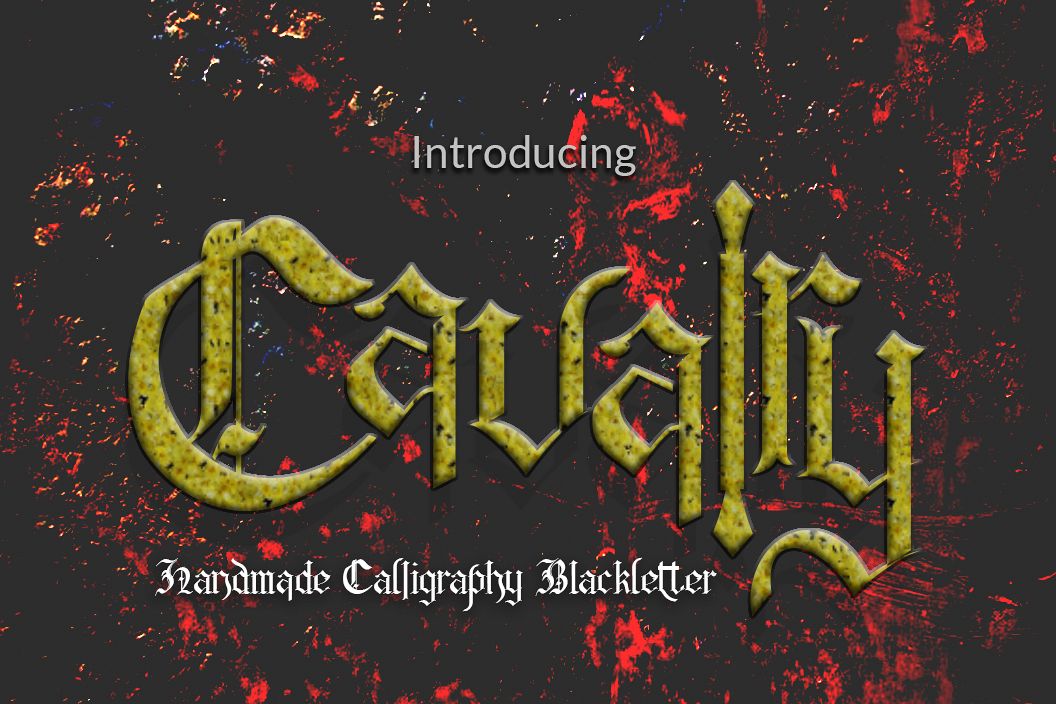
Cavalry Blackletter is handmade calligraphy font, Cavalry Font Inspiration from name of Army Horse.Cavalry Blackletter it's come with opentype, Ligature, number and punctuation. support windows and Mac (ttf and otf format).Cavalry Blackletter Perfect for branding, Logos, wall design, beautiful card, formal letter, Cover Tapes, DVD Cover, Certificate ect.Product Contents:
• Characters Uppercase and Lowercase Opentype
• Lowercase Alternate
• Punctuations
• Opentype Ligature
• Numeral
• Catchwords
• swashes